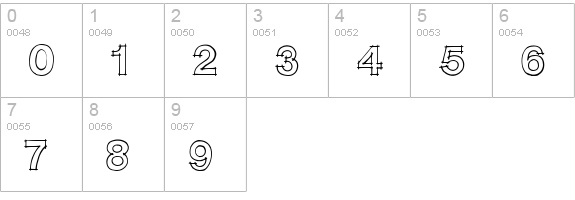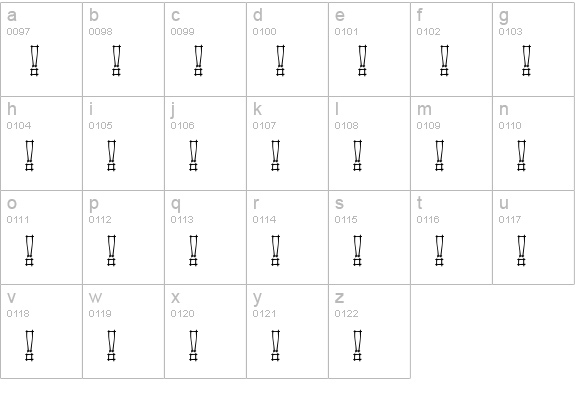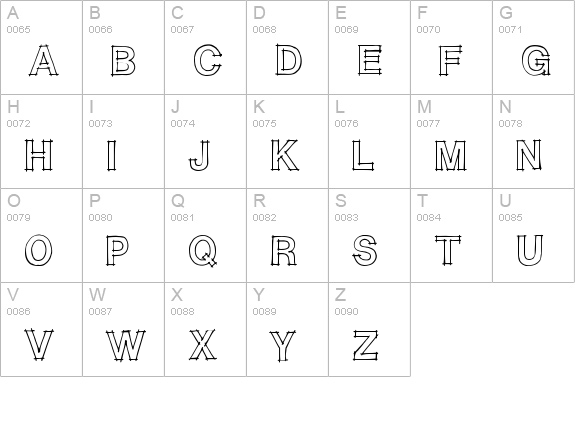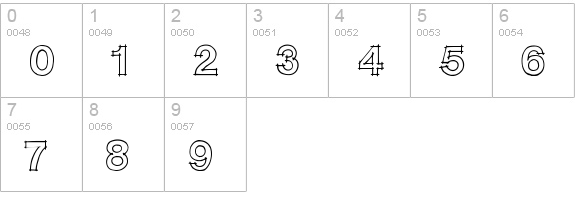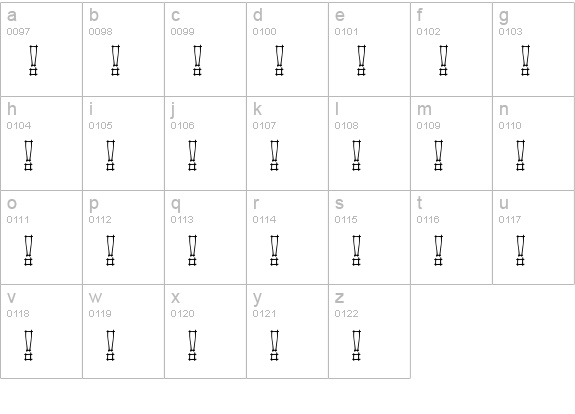
CAITLYN Font Details
Introducing CAITLYN font, a beautifully crafted typeface that exudes elegance and sophistication. With its sleek lines and graceful curves, CAITLYN is the perfect choice for any design project that calls for a touch of class. Whether you're creating invitations, branding materials, or social media graphics, this versatile font is sure to make a statement. The best part? CAITLYN font is completely free to download at FontsMarket.com. That's right, you can add this stunning font to your collection without spending a dime. So why wait? Elevate your designs with CAITLYN font today and let your creativity shine.